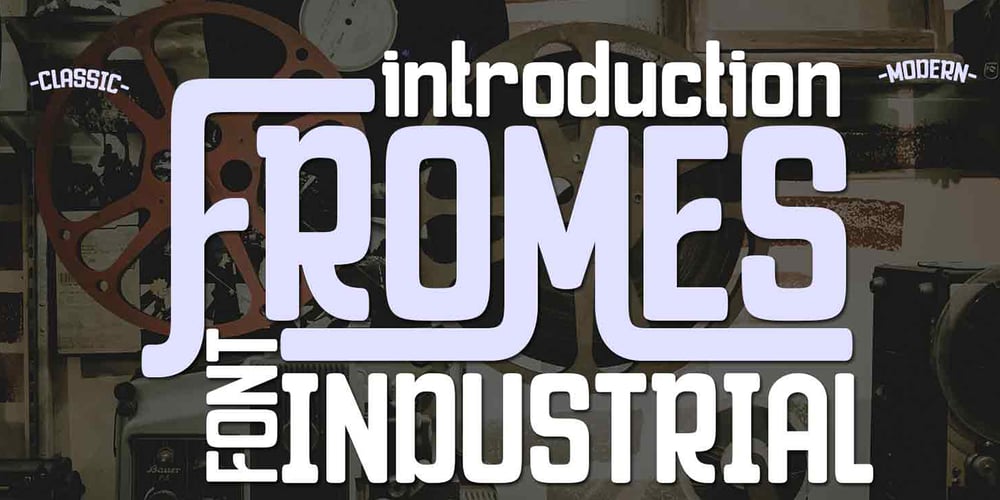
Fromes Industrial Font Family was designed by Ibram Syah and published by Jehansyah. Fromes Industrial contains 1 styles and family package options. fromes industrial this is a natural but very charming font design, elegant impression and does not leave a clear and firm concept into it, this design too, can create a neat impression to be used as a wall decoration or your poster design project,very suitable for all types of designs, and several other printed works, such as posters, book thumbnails, films, magazines, and many more,there are several alternate letters that you can use and combine into them, and are supported by PUA Encode which means you can easily access all flying machines,include : numeric punctuation alternate latin Thank You Very Much